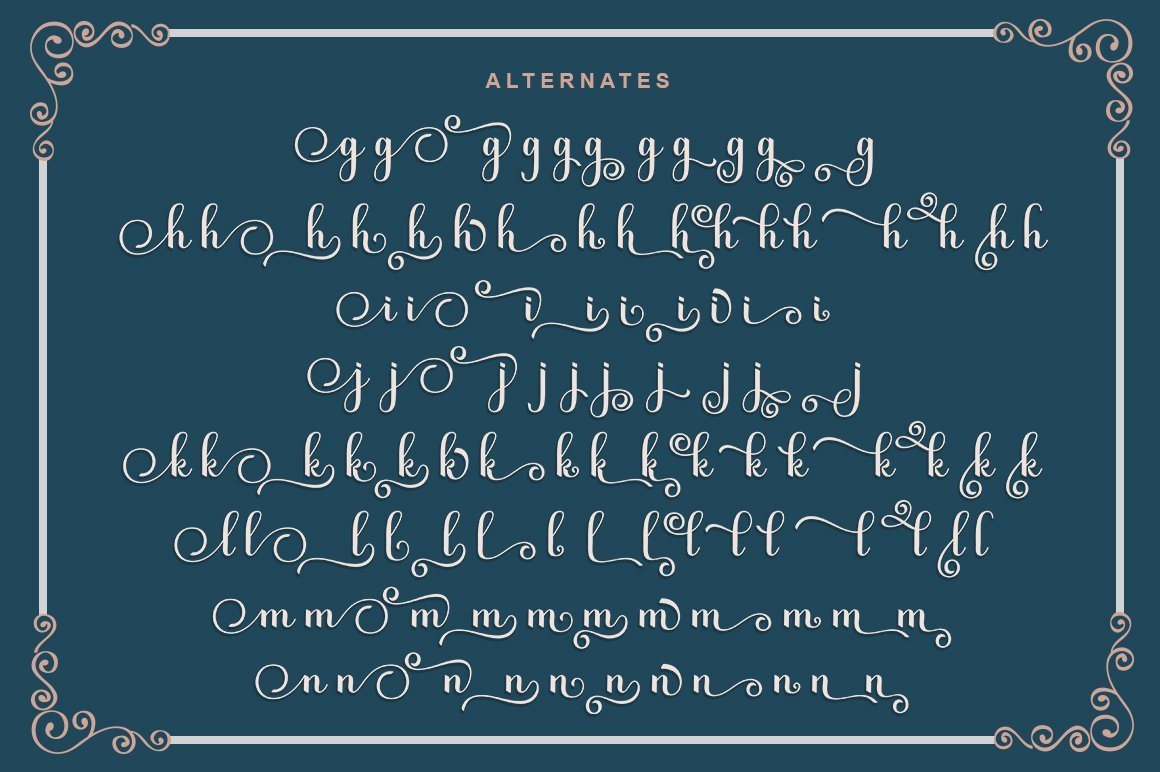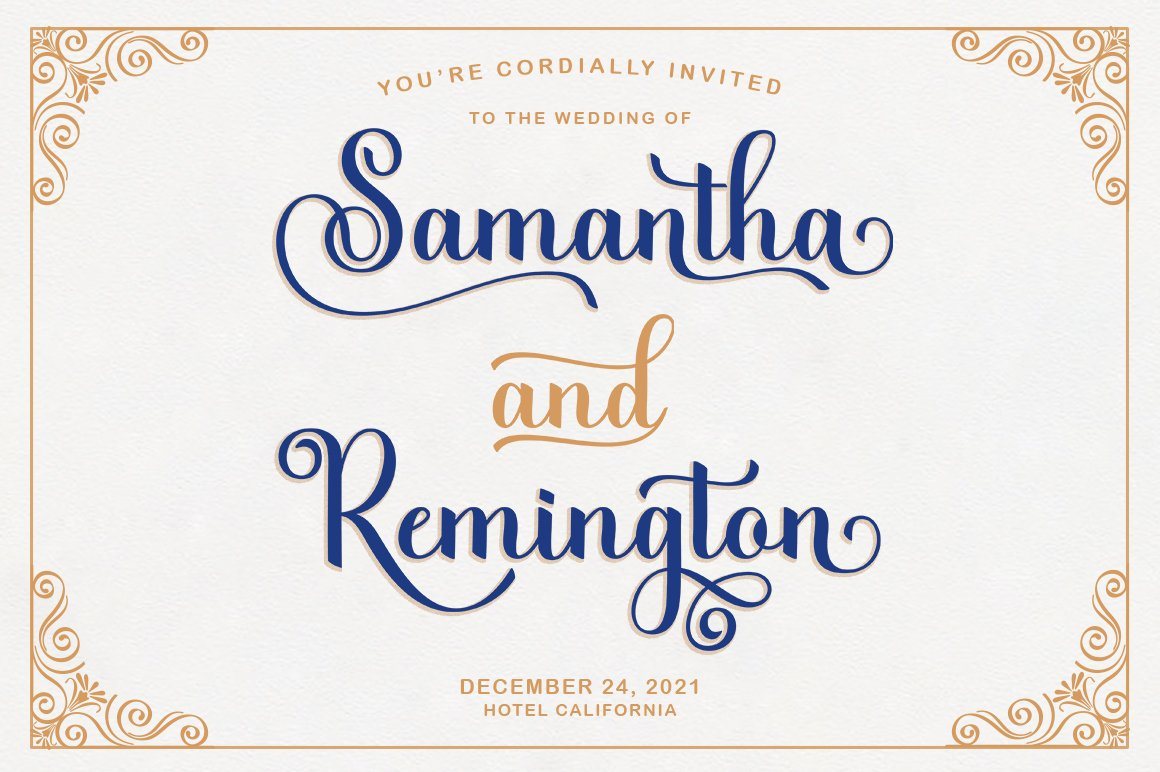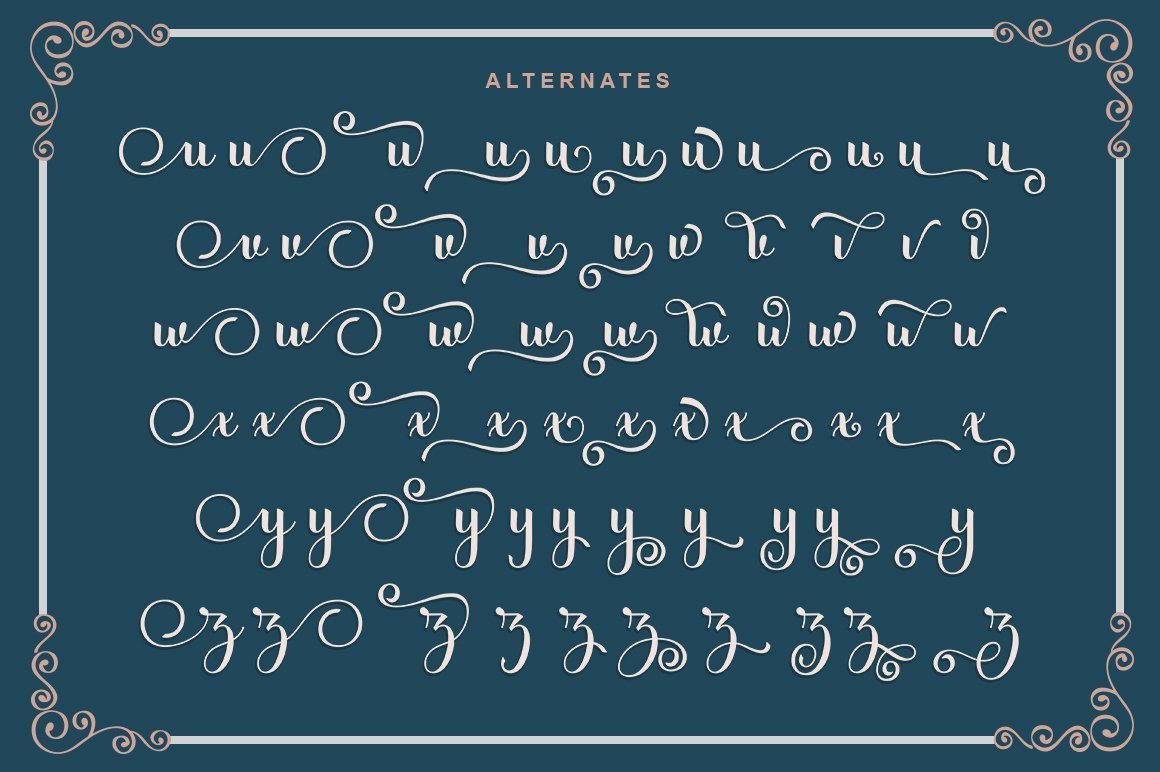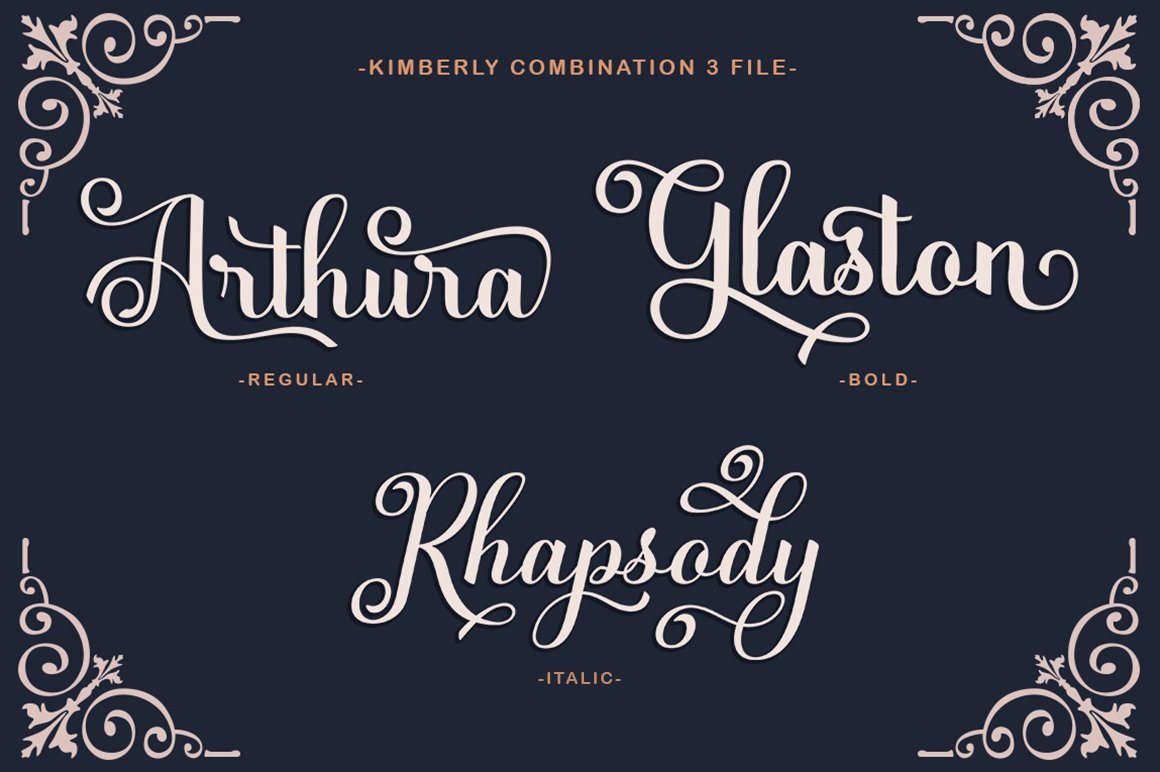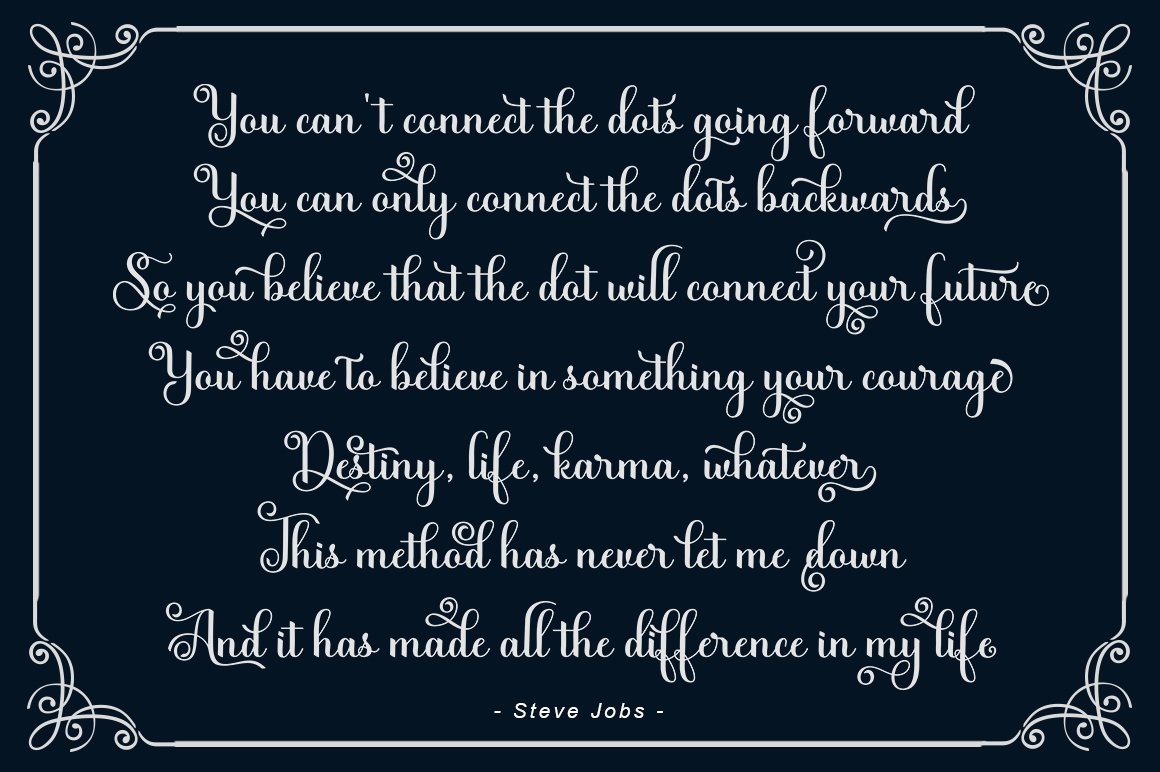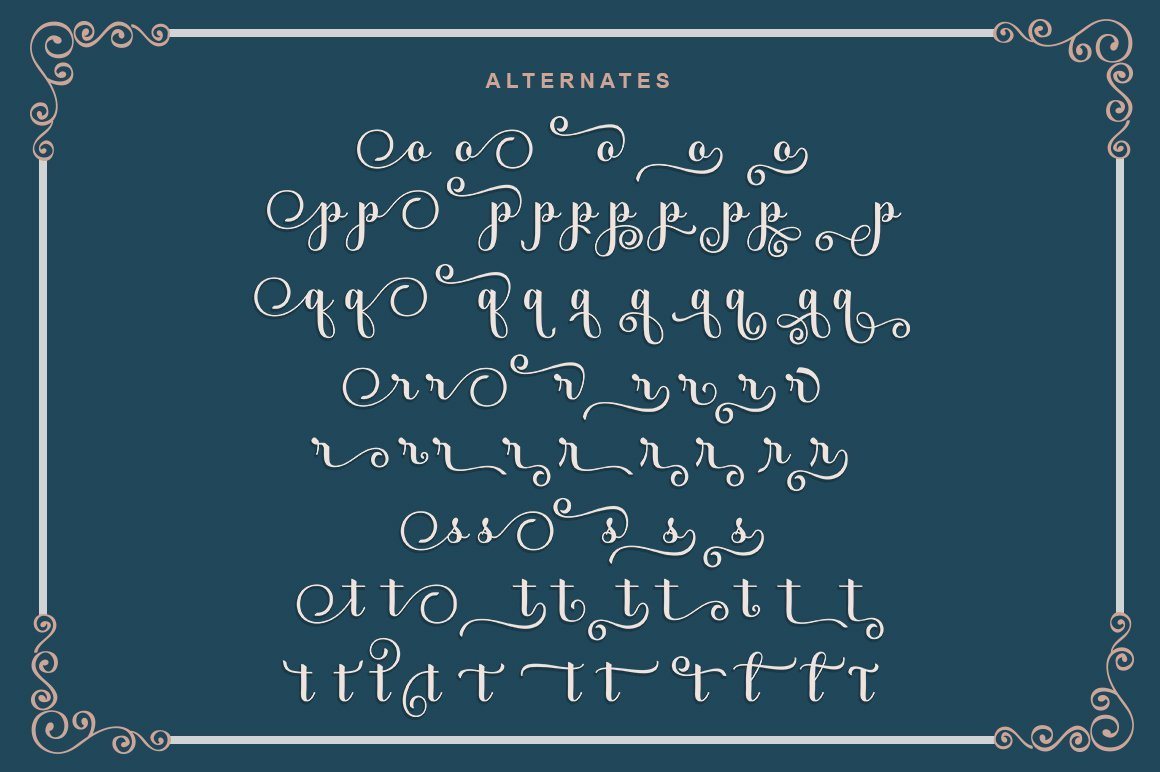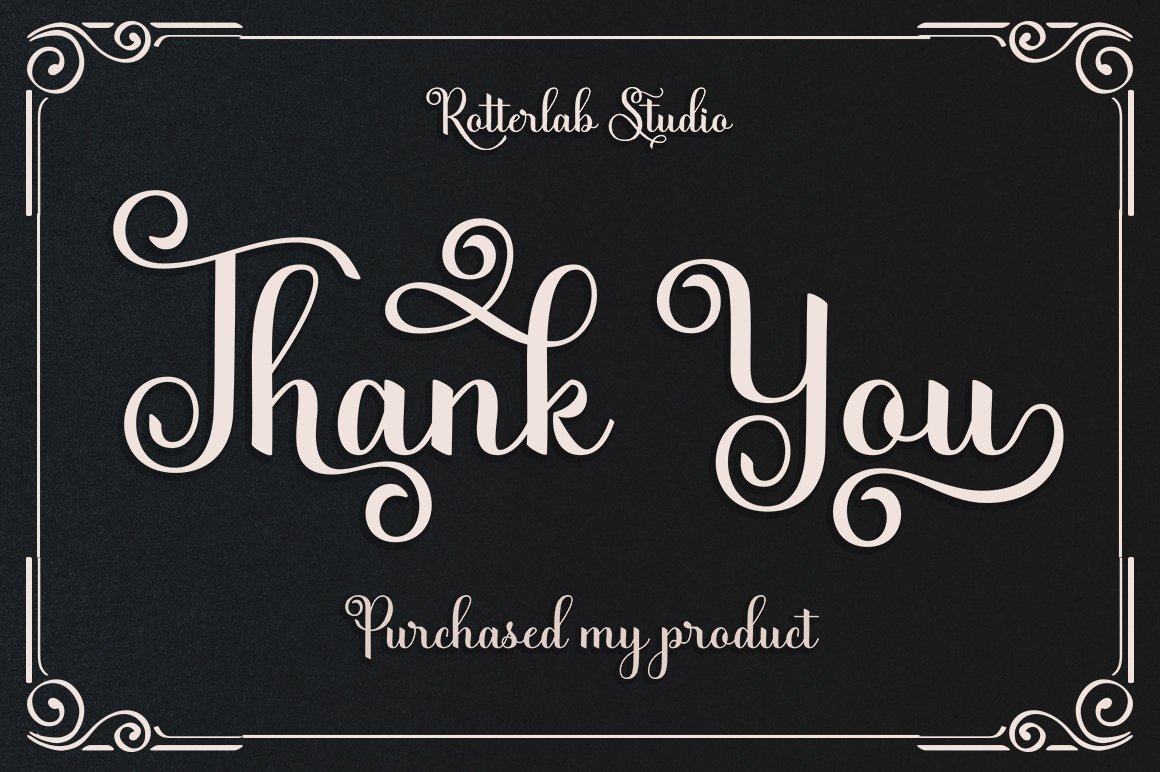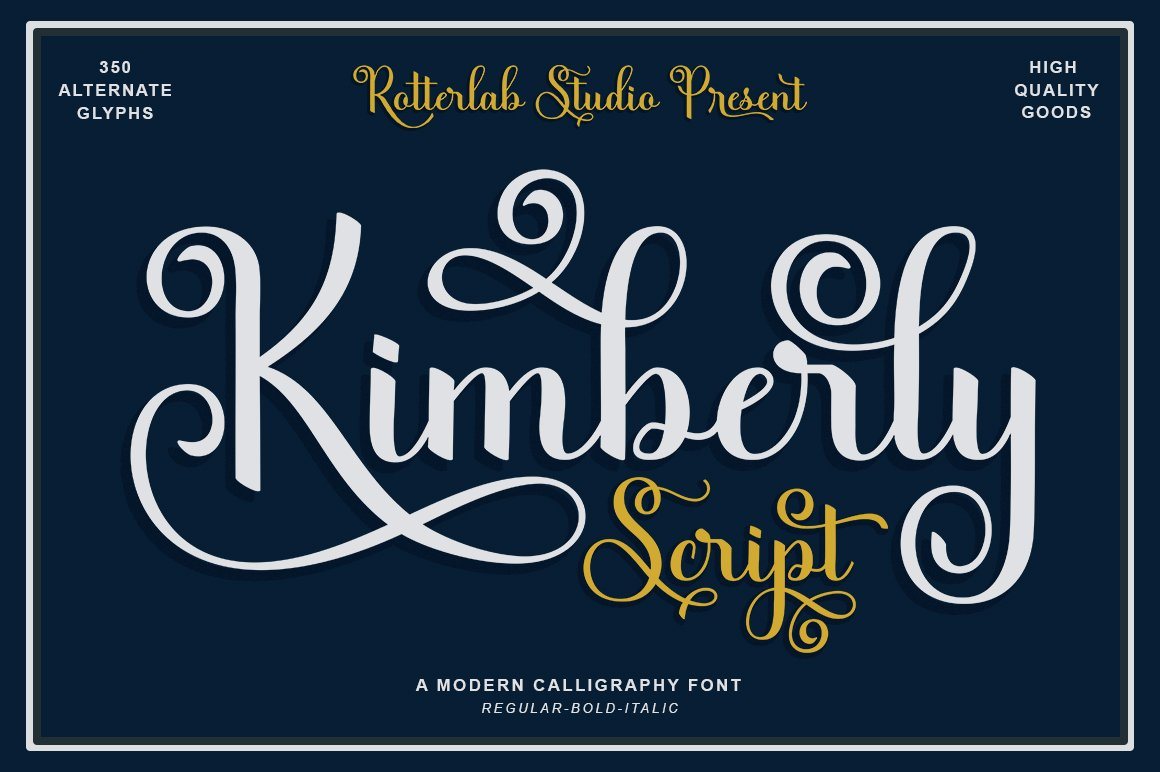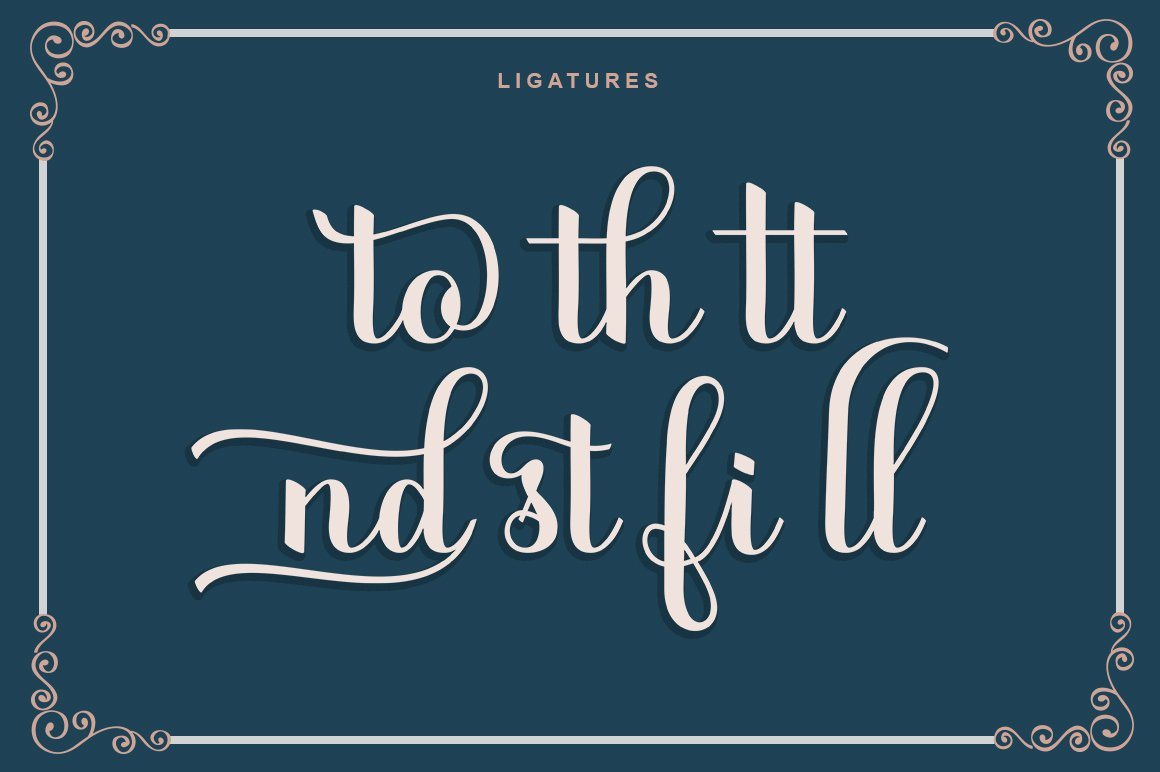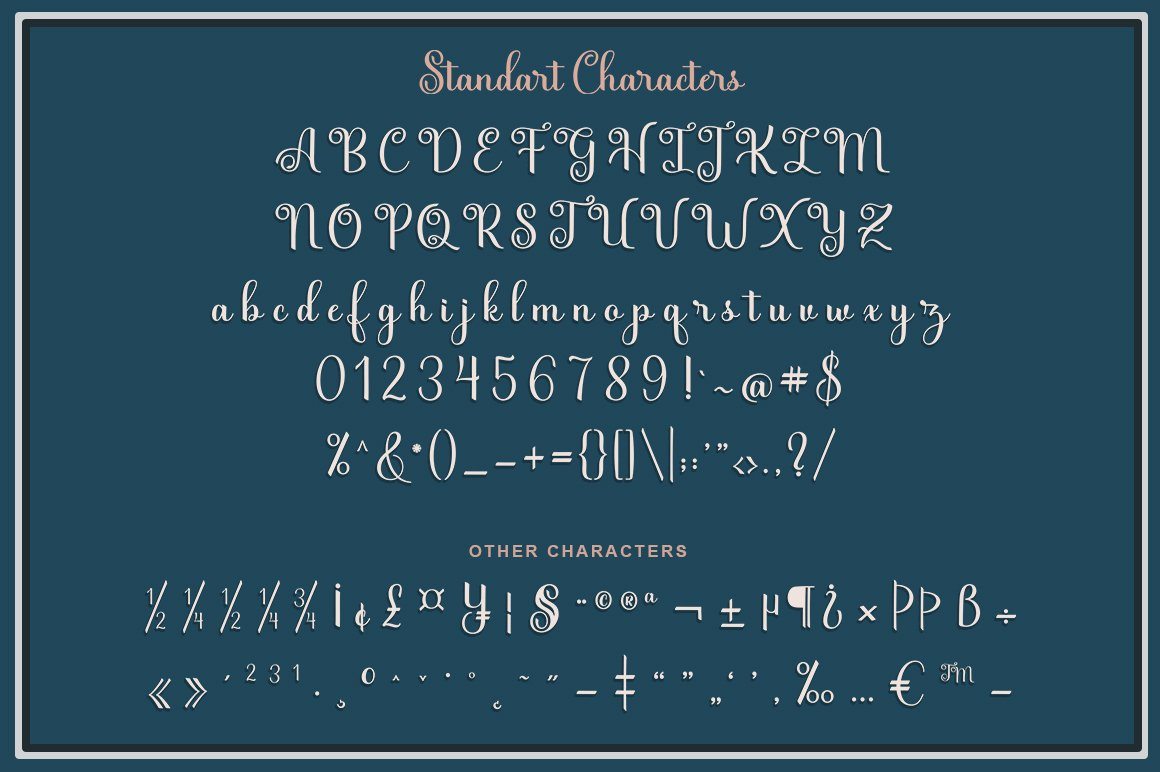
Kimberly Script | 3 Style
Kimberly Script is a contemporary calligraphic typeface, a mixture of retro script. get a classic and elegant touch. Can be used for various purposes.such as logos, wedding invitations, t-shirts, letterheads, signage, labels, news, posters, badges etc. Kimberly Script features 583+ glyphs and 350 alternate characters, ligatures, swash and multiple language support. To enable the OpenType Stylistic alternates, you need a program that supports OpenType features such as Adobe Illustrator CS, Adobe Indesign & CorelDraw X6-X7, Microsoft Word 2010 or later versions. There are additional ways to access alternates/swashes, using Character Map (Windows), Nexus Font (Windows), Font Book (Mac) or a software program such as PopChar (for Windows and Mac).How to access all alternative characters, using Windows Character Map with Photoshop: https://www.youtube.com/watch?v=Go9vacoYmBw Files include: Kimberly Script.OTF Kimberly Script.TTF Kimberly Script Bold.OTF Kimberly Script Bold.TTF Kimberly Script Italic.OTF Kimberly Script Italic.TTF If you need help or advice, please contact me by e-mail Thank you